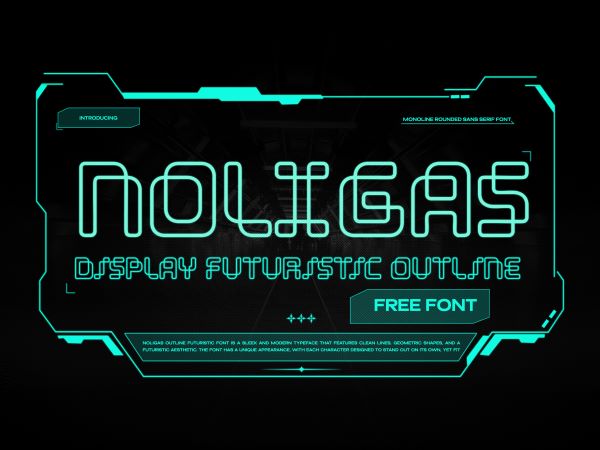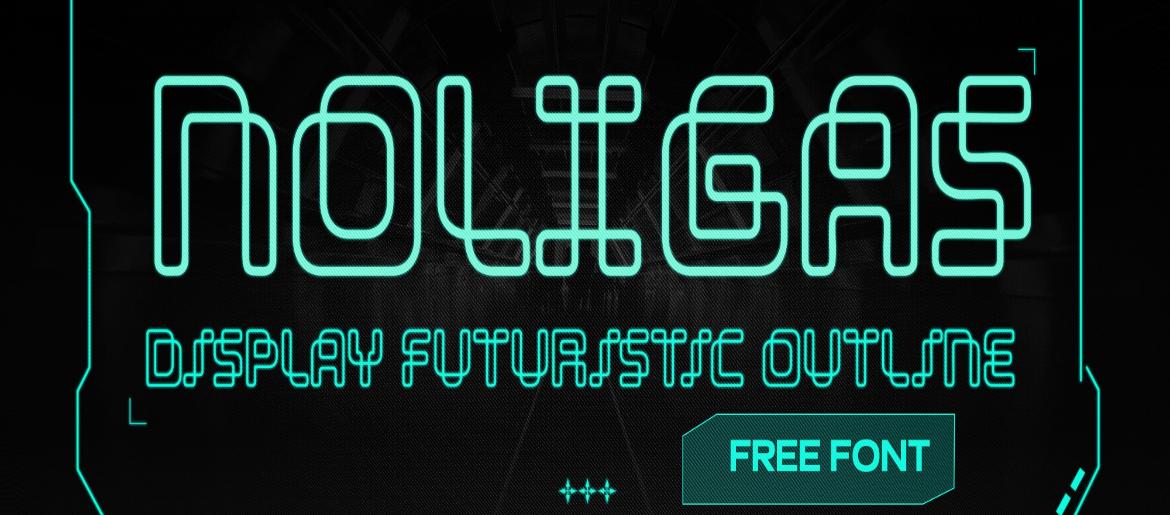
Noligas Font
Noligas by Drizy Font is a futuristic techno outline display typeface that brings a cutting-edge cyberpunk sensibility to every letterform. Its defining feature is the meticulous outline construction of each character — precisely drawn contours that create a mesmerising, almost animated visual quality, as though the type itself is pulled from a holographic interface or digital data stream. A free demo version is available for personal use.